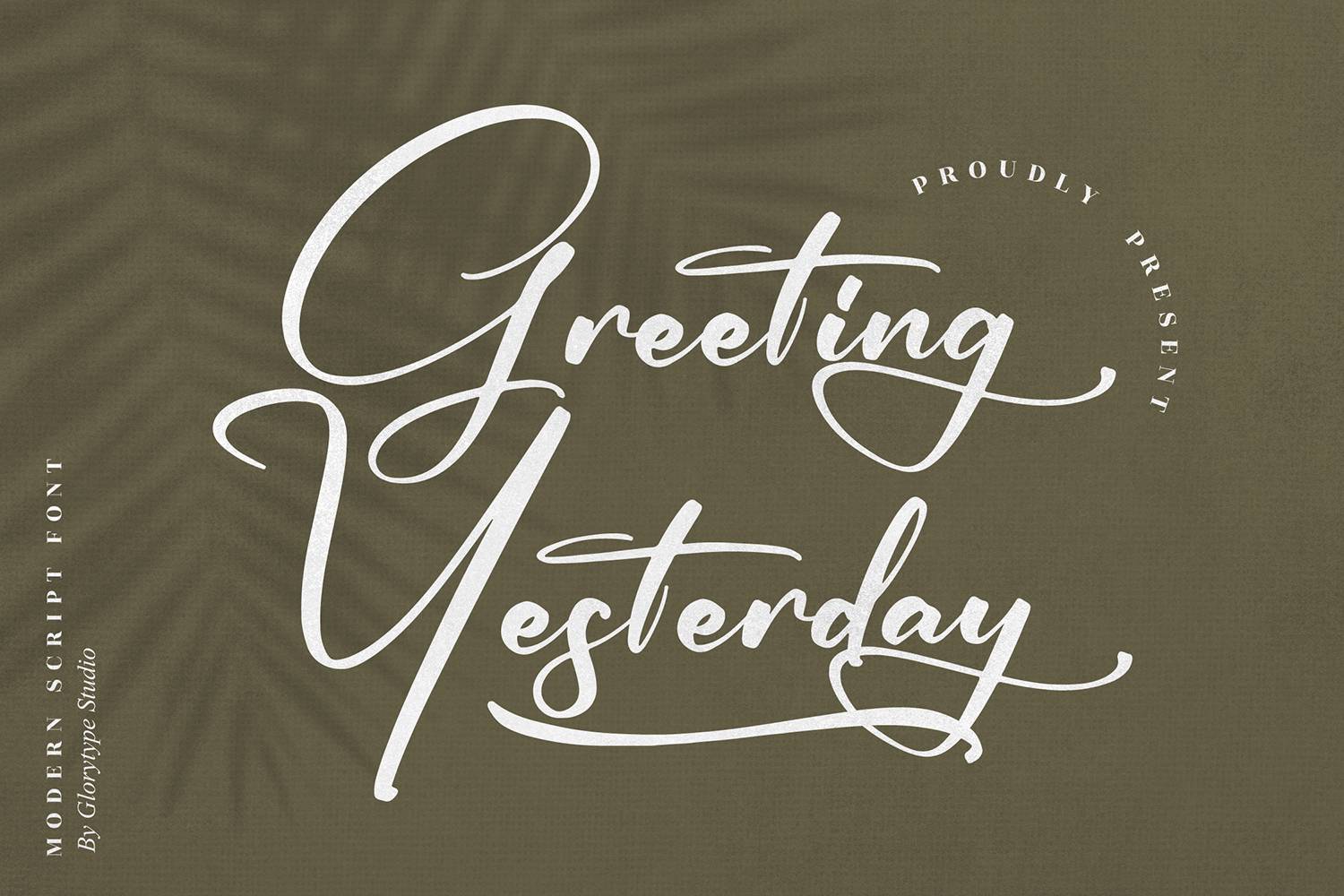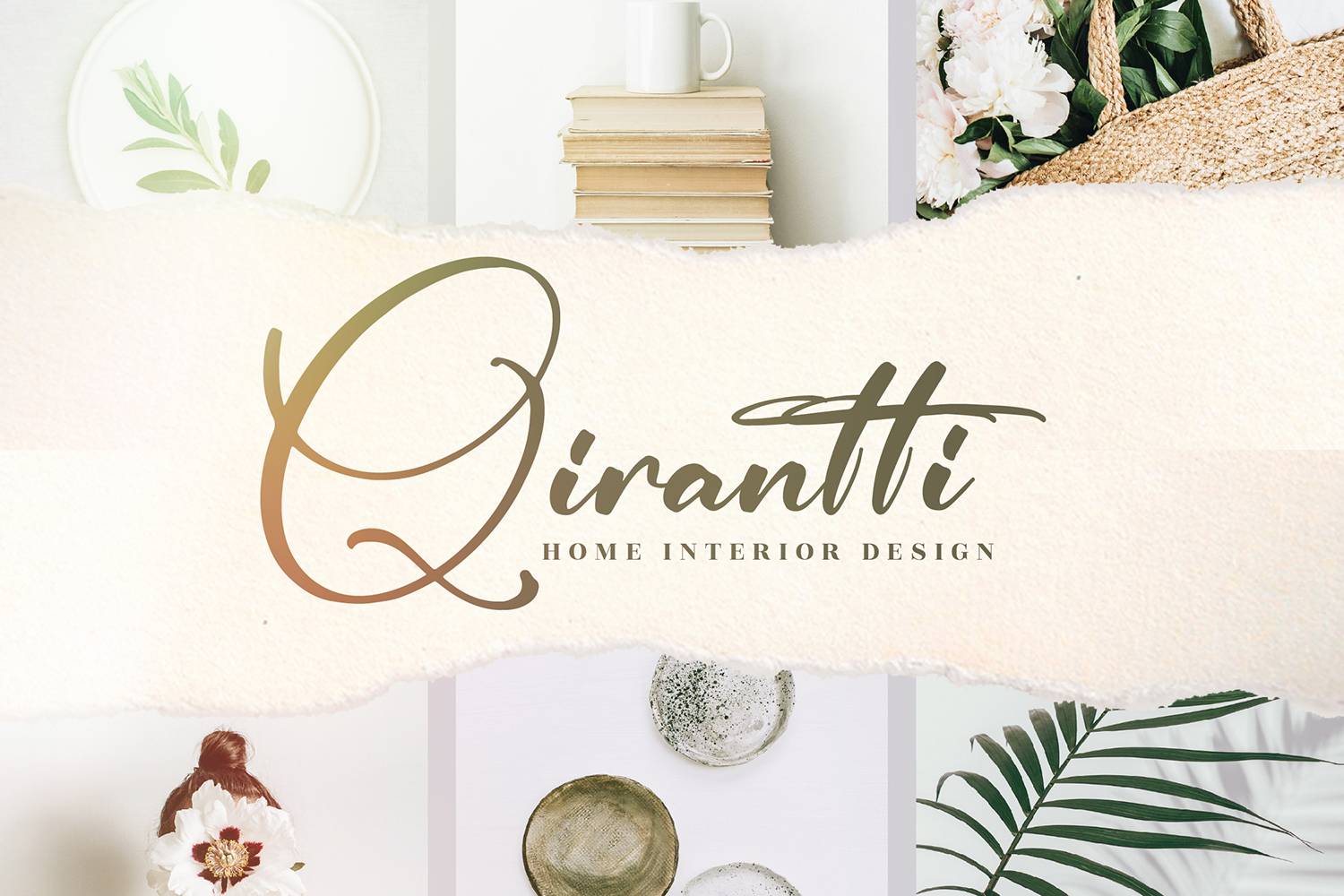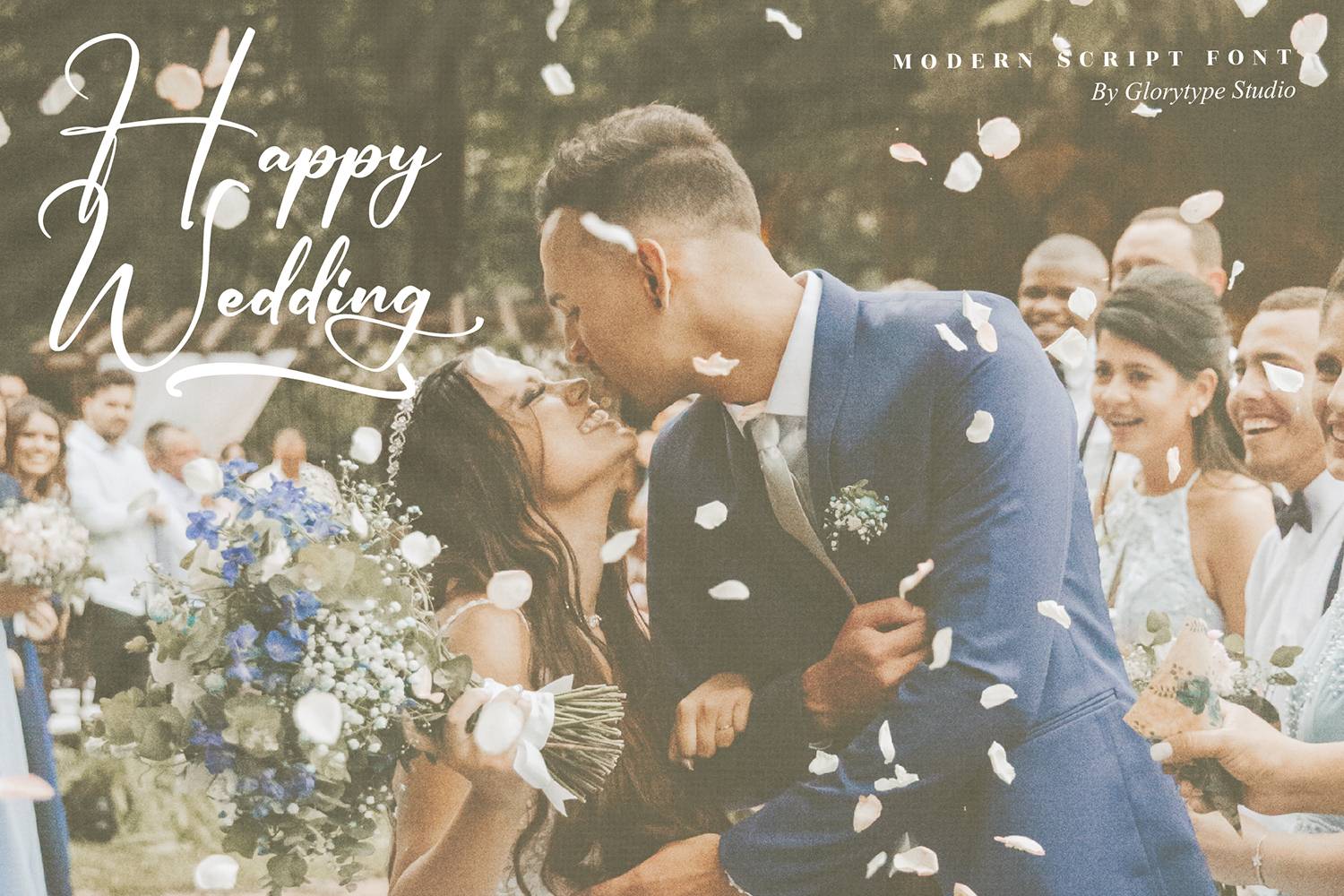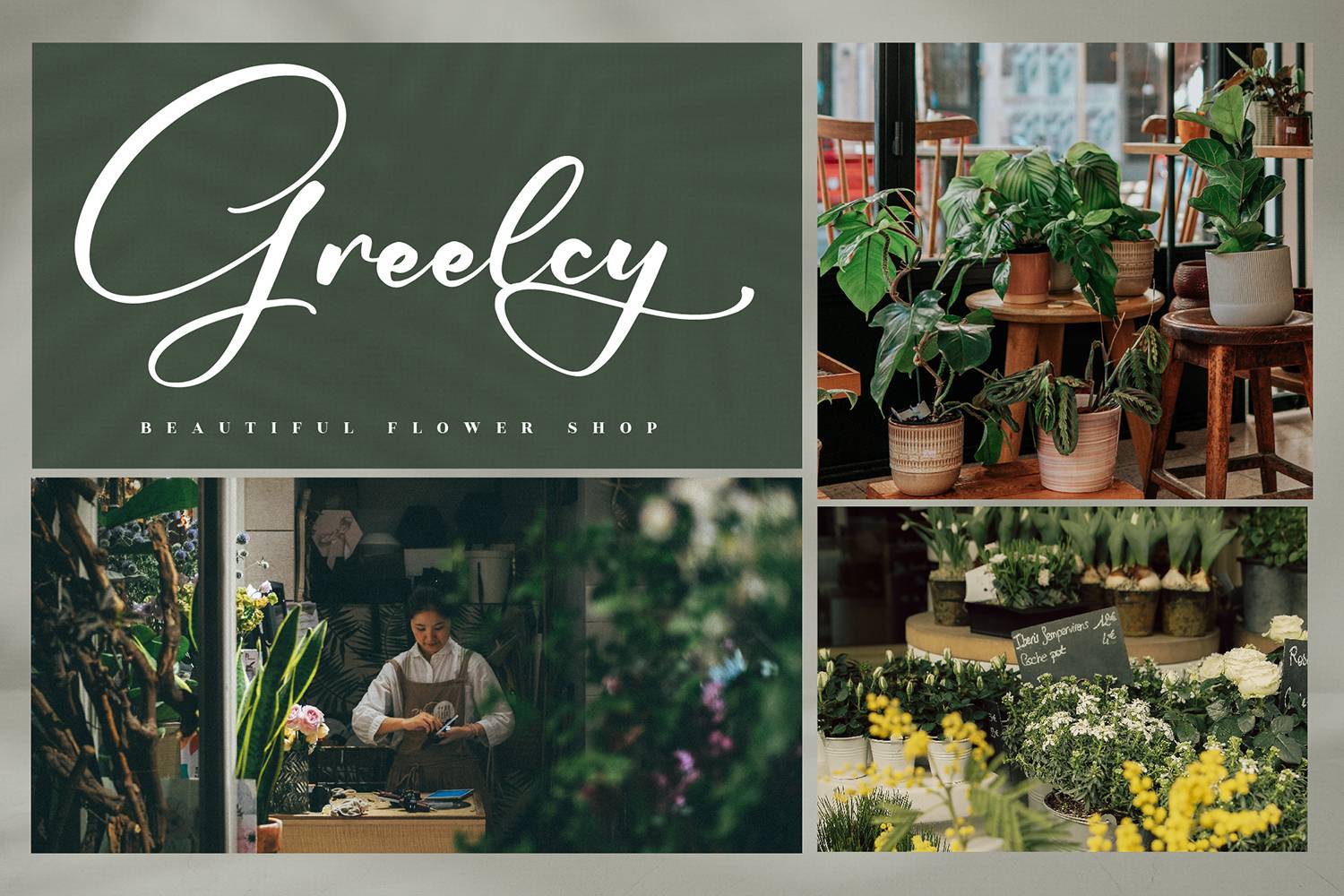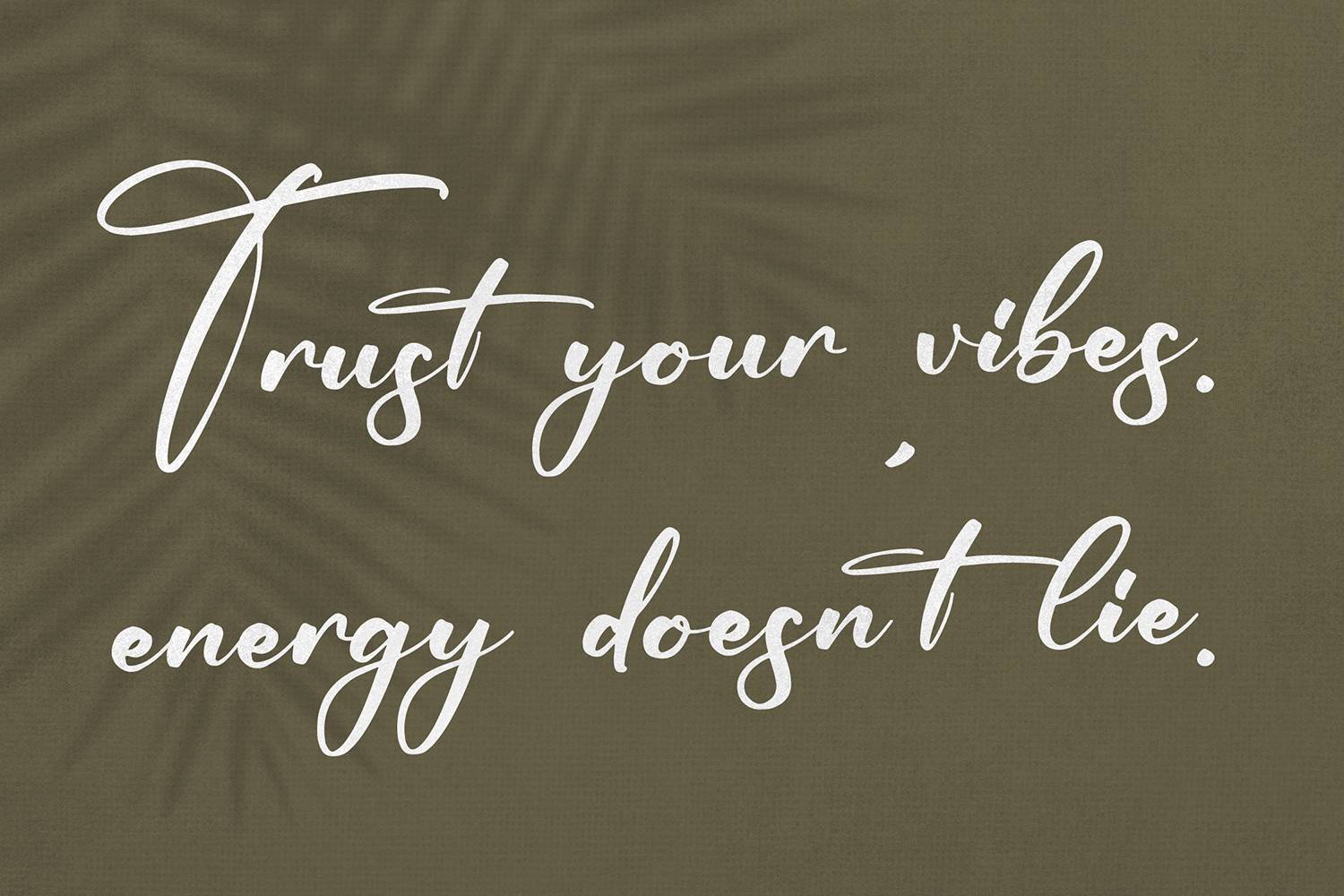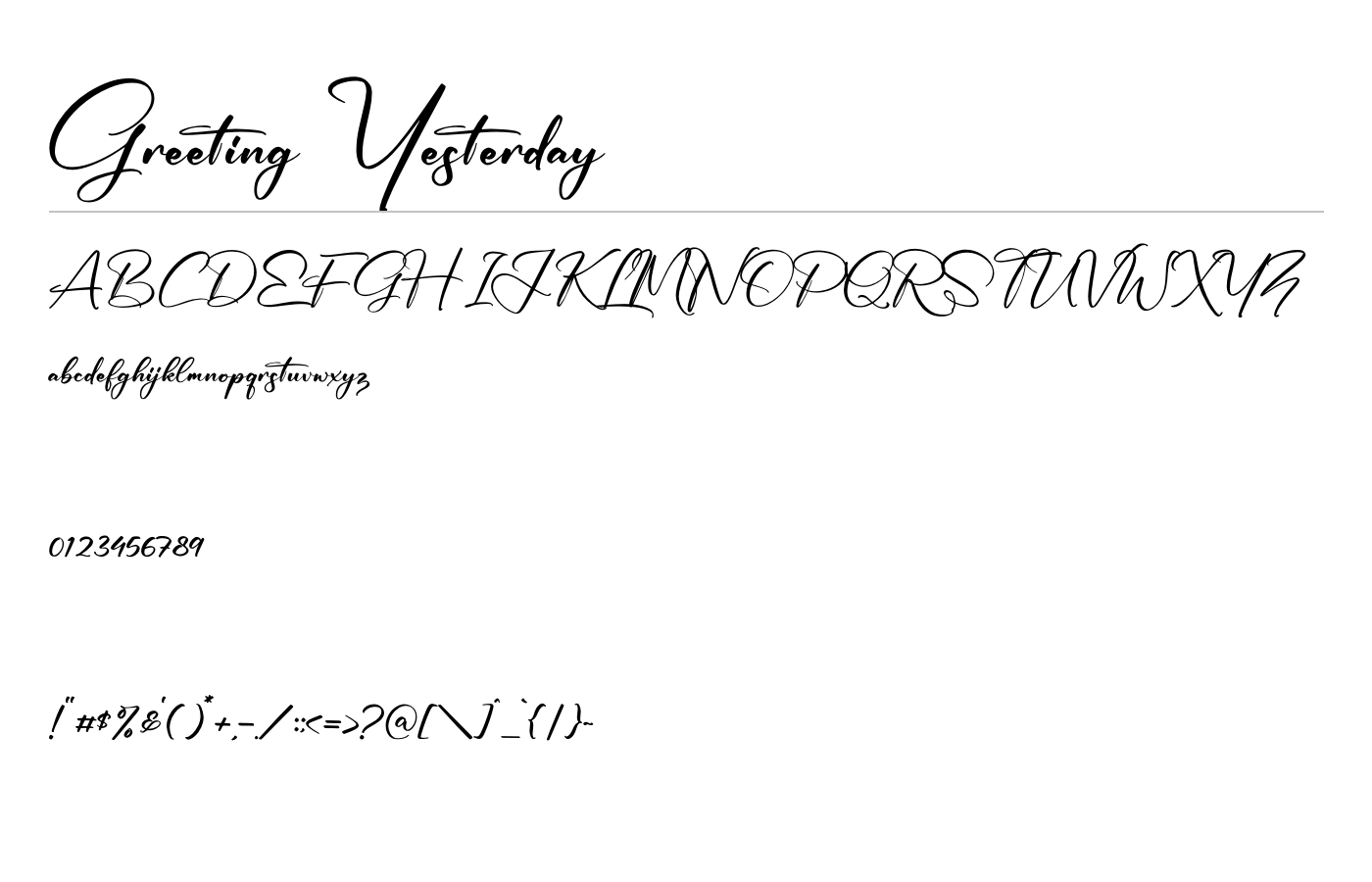
Greeting Yesterday is an elegant cursive script font that features fine, flowing strokes with a delicate and airy feel. Its graceful, hand-drawn style is perfect for projects needing a touch of sophistication and charm, making it ideal for invitations, branding, and stylish headlines where a personal, refined look is desired.
Greeting Yesterday Font
About Greeting Yesterday Font